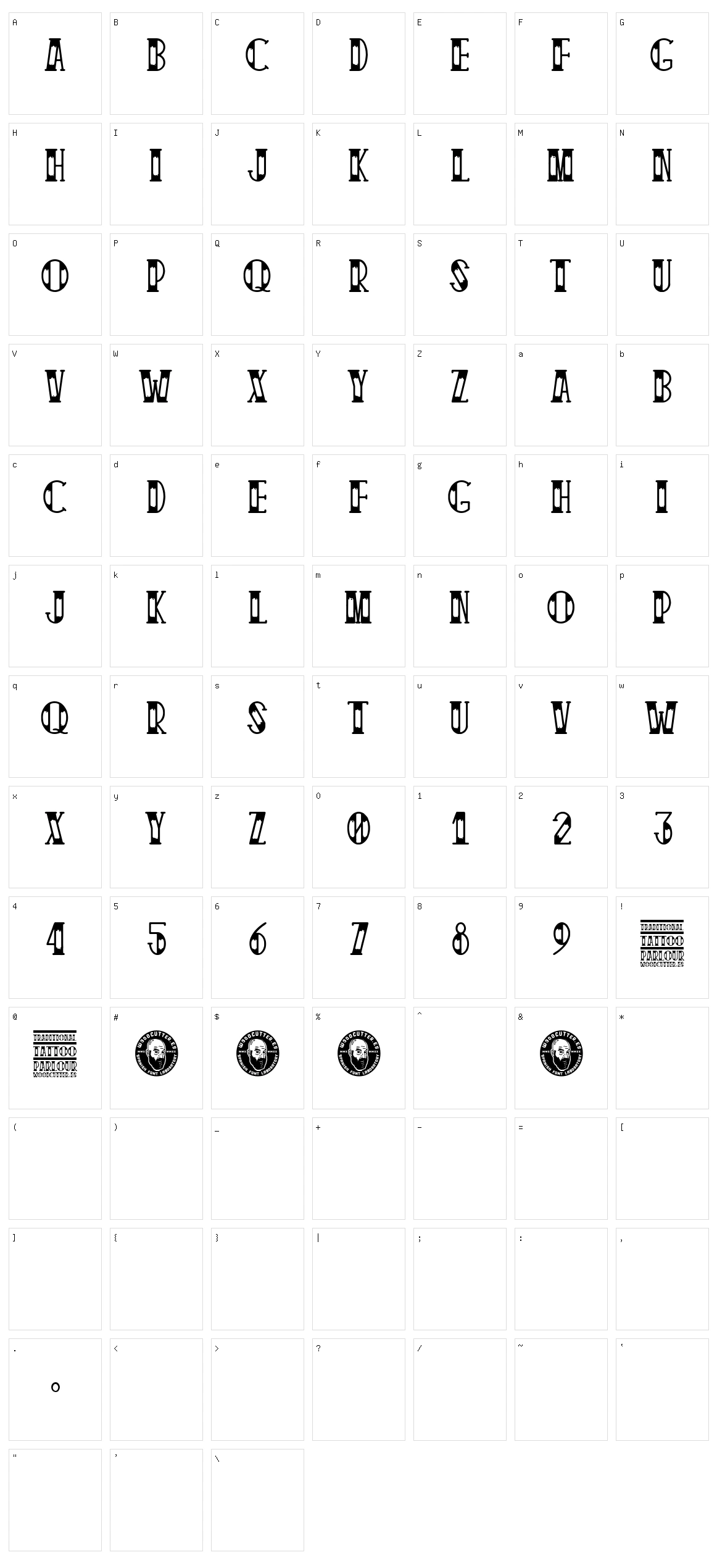
The free font Traditional Tattoo Parlour is carefully designed by Woodcutter, showcasing a thoughtful balance of creativity and usability and falls under the Retro font style. When you download the ZIP file, it contains only 52.39 KB of font files, making it lightweight and quick to download. Please review the license details below to understand permitted usage and distribution rights. If license information is not available, we recommend using this font for personal projects only or contacting the author directly for commercial usage permissions.